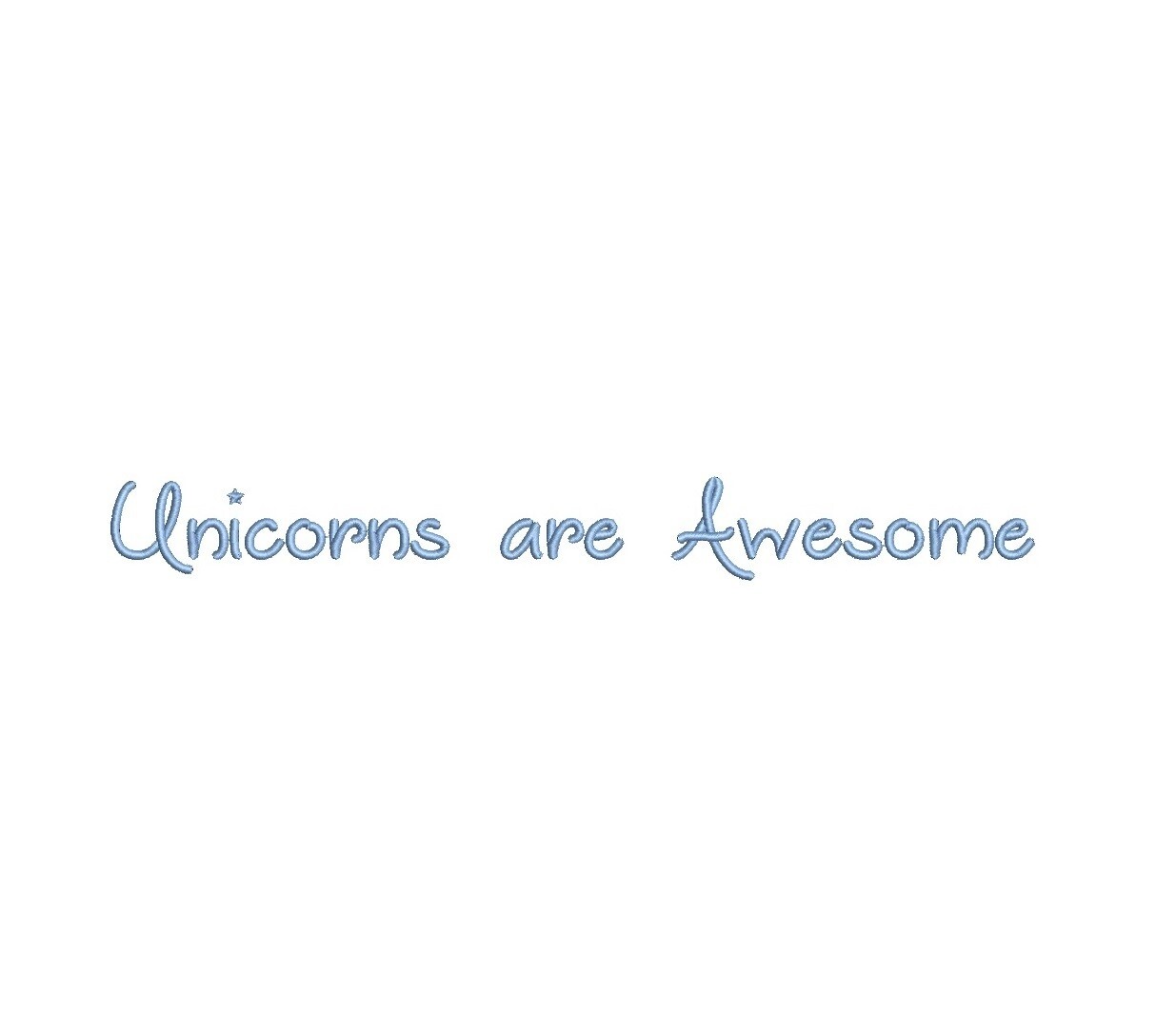
Embrace the magic of 'Unicorns are Awesome Regular ESA' font, tailor-made for embroidery enthusiasts seeking enchanting and whimsical designs. This delightful typeface brings the allure of unicorns to your creations, spreading awesomeness and wonder. Seamlessly compatible with Wilcom Studio e4.5.6 and Hatch 3 versions and above, it effortlessly integrates into your digitizing workflow. Its graceful curves and playful strokes ensure impeccable stitch quality, elevating your embroidery projects to a level of fantastical delight. Ideal for imaginative monograms, quotes, and decorative elements, this ESA font sparks creativity and guarantees an awe-inspiring masterpiece. Unleash the magic of 'Unicorns are Awesome Regular ESA' font today!